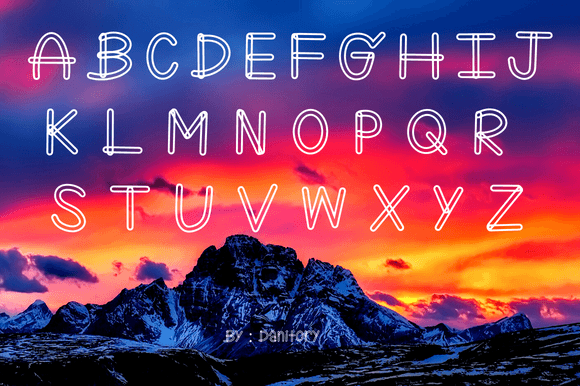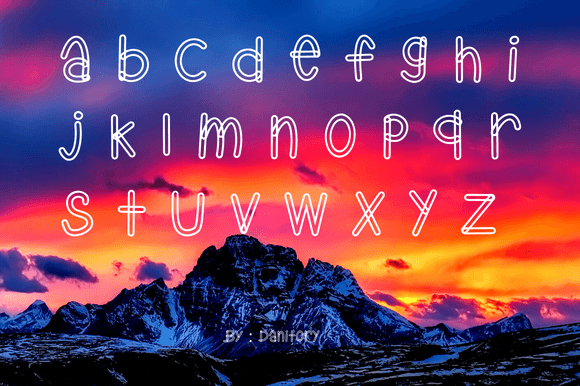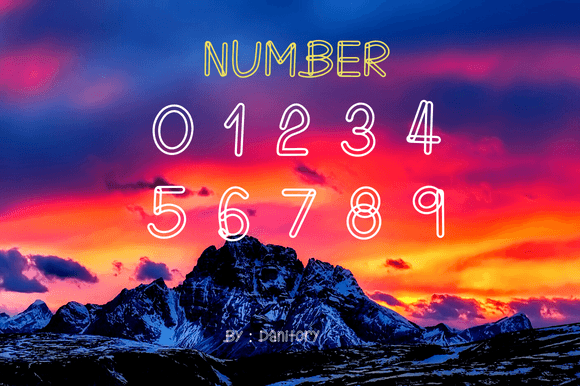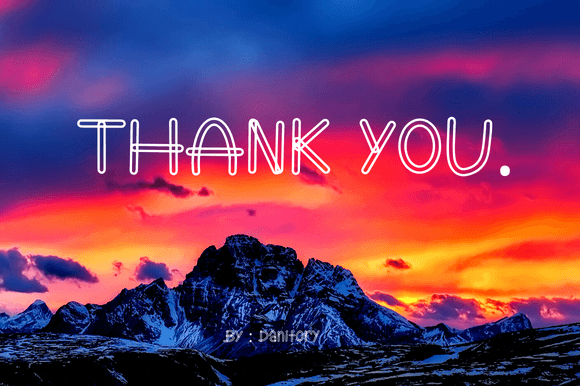
Introducing Clear Font: The Modern and Cool Display Font
Are you tired of using the same old fonts for your designs? Look no further! Clear Font is a modern and cool display font that is sure to elevate your designs to the next level. With its simple and neat design, Clear Font is suitable for a wide spectrum of applications, from digital displays to print materials.
What Makes Clear Font Stand Out?
Clear Font is a sans-serif font that boasts a clean and minimalist design. Its sleek lines and curves make it perfect for headlines, titles, and other display text. The font is highly legible, even at small sizes, making it ideal for use in a variety of contexts. Whether you’re designing a logo, a poster, or a website, Clear Font is sure to make a statement.
Key Features of Clear Font
- Modern and Cool Design: Clear Font has a fresh and contemporary look that is sure to grab attention.
- Simple and Neat: The font’s clean design makes it easy to read and understand.
- Highly Legible: Clear Font is designed to be clear and legible, even at small sizes.
- Versatile: The font is suitable for use in a wide range of applications, from digital displays to print materials.
Use Cases for Clear Font
Clear Font is a versatile font that can be used in a variety of contexts. Here are a few examples:
- Logo Design: Clear Font is perfect for creating modern and sleek logos that are sure to make a statement.
- Poster Design: The font’s bold and eye-catching design makes it ideal for use in posters and flyers.
- Website Design: Clear Font can be used to create stunning headlines and titles that will elevate your website’s design.
- Print Materials: The font is suitable for use in a variety of print materials, including brochures, business cards, and more.
Why Choose Clear Font?
There are many fonts available, but Clear Font stands out from the crowd. Here are a few reasons why:
- Unique Design: Clear Font has a unique and distinctive design that sets it apart from other fonts.
- High-Quality: The font is designed to be high-quality and legible, making it perfect for use in a variety of contexts.
| Font Name | Clear Font |
| Author | danita.kukkai |
- What is Clear Font?: Clear Font is a modern and cool display font that is suitable for a wide range of applications.